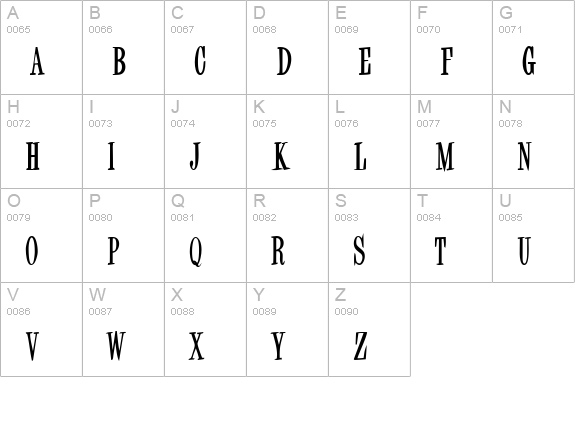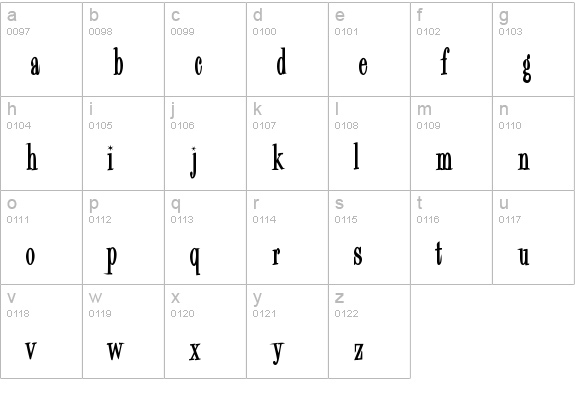
BigFlirt Font Details
Introducing BigFlirt font, a stunning typeface that exudes charm and elegance. This versatile font is perfect for adding a touch of sophistication to your designs, whether it's for branding, invitations, posters, or any other creative project. With its playful yet refined appearance, BigFlirt font is sure to make a lasting impression. The smooth curves and stylish flourishes of this font will elevate your designs and captivate your audience. What's even better is that BigFlirt font is available for free download at FontsMarket.com. Yes, you read that right - you can enjoy the beauty and versatility of this font at no cost. Don't miss out on the opportunity to enhance your projects with the captivating BigFlirt font. Download it now and let your creativity shine!